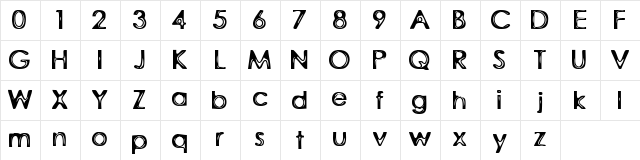
Rubber Walls Regular
Design Context for Rubber Walls
Rubber Walls is a composed and adaptable typeface that performs quietly and consistently across a wide range of design contexts.
Pro Tip: Use Rubber Walls in both headline and body roles to test its range before committing to a single application.